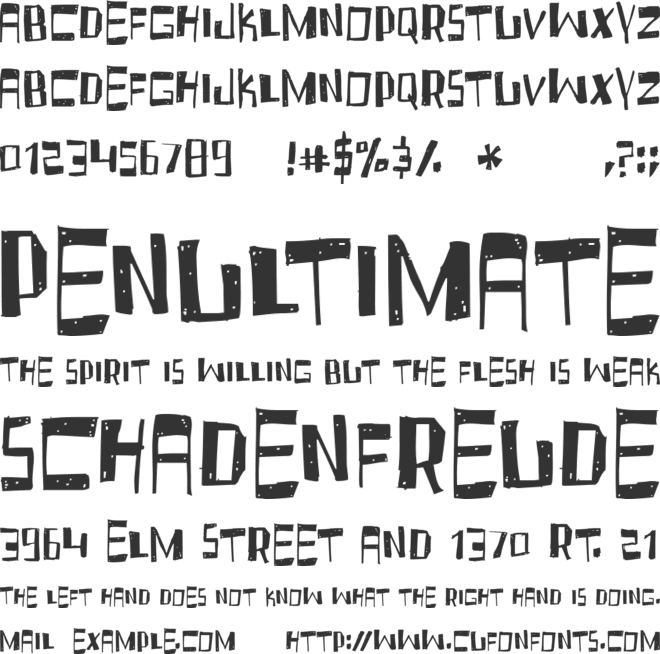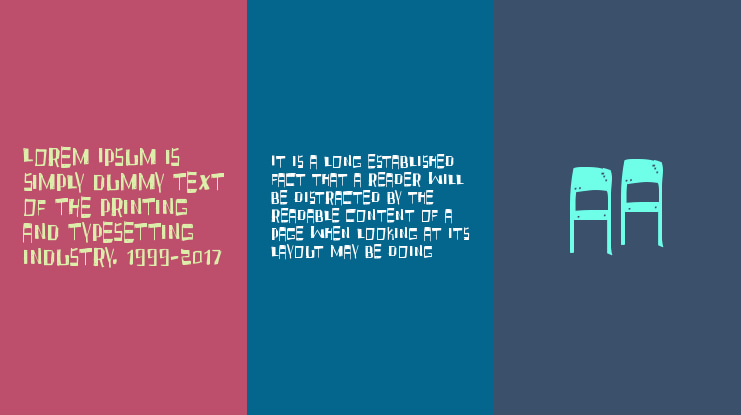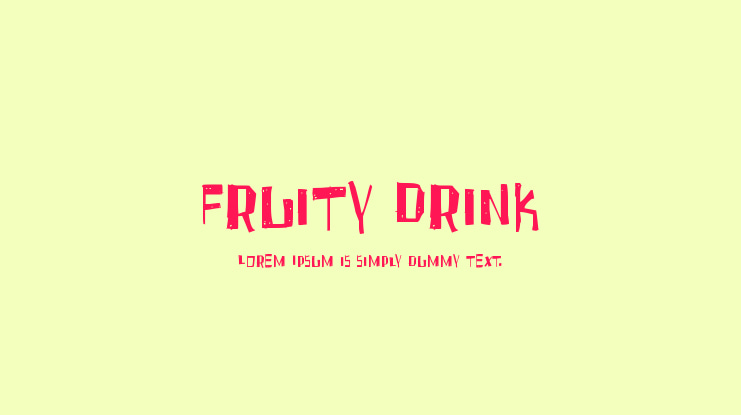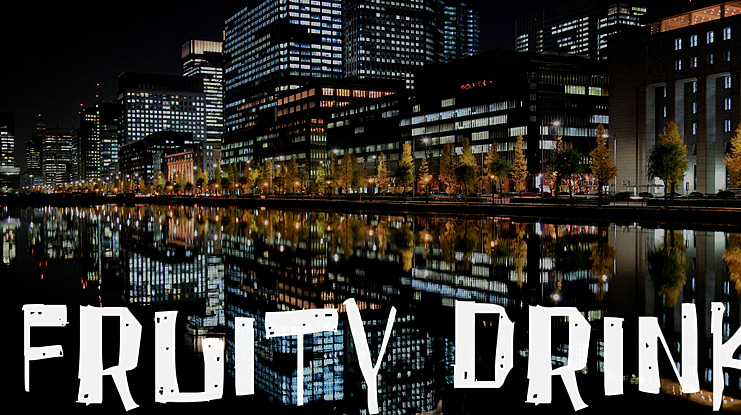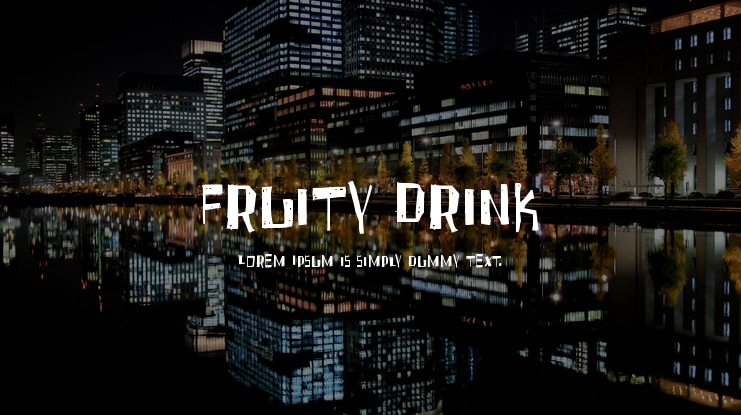
Fruity Drink Font
A fine carbonated beverage. Drink up. Any relation of this font and its
name to the type found on the labels of a particular cherry-flavoured soft
drink is not only coincidental it's also undeniable.